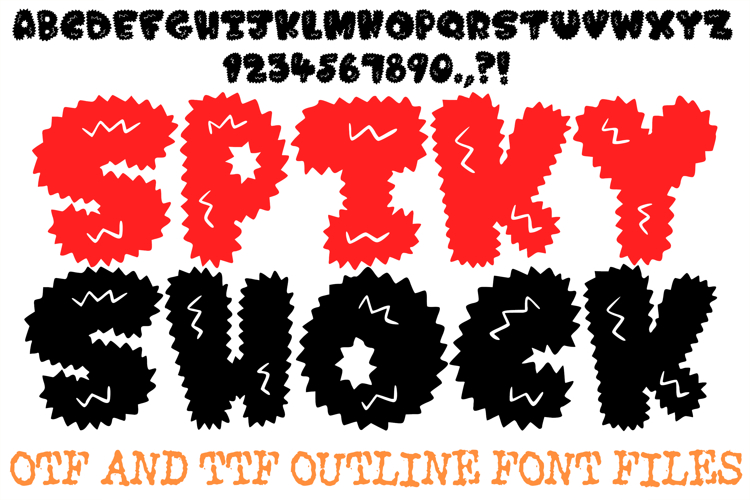
Inject high-energy, electric vibes into your layouts with the bold and buzzing Spiky Shock Font. This heavy display typeface features solid, chunky letterforms outlined with raw, jagged spike details that mimic static electricity, wild creature fur, or punk-rock energy. Inside each bold character lies a contrasting white lightning-bolt cutout, adding a striking graphic element that instantly captures attention. It stands as an exceptional choice for headlines, titles, and craft designs that require a powerful, rebellious, or delightfully monstrous aesthetic.
Delivered as an installable typeface, this high-contrast vector structure provides incredible creative versatility. It serves as an excellent resource for a designer who wants to apply vibrant neon gradients, layer bold pop-art colors behind the spiked silhouettes, or contrast the dark textured glyphs against intensely bright backdrops. The clean, sharp vectors scale flawlessly across all major creative software, ensuring crisp, powerful results for digital media and physical print projects.